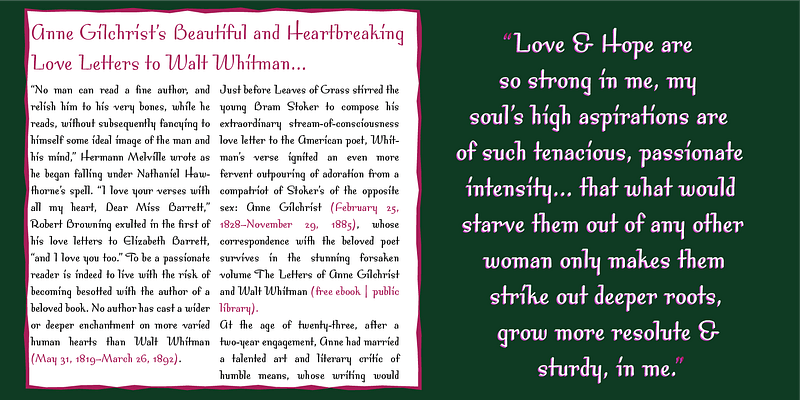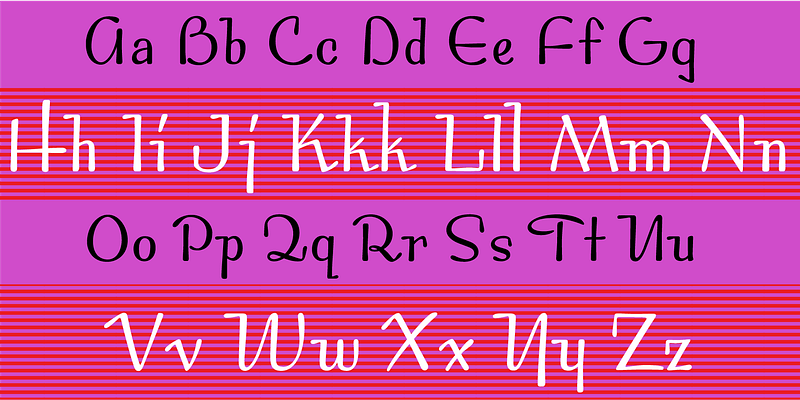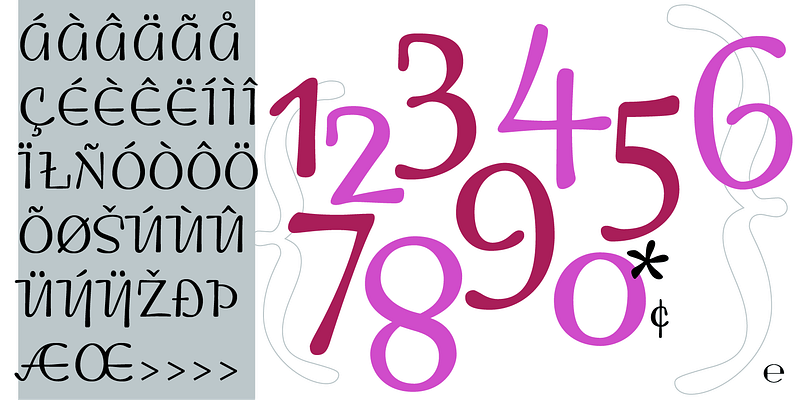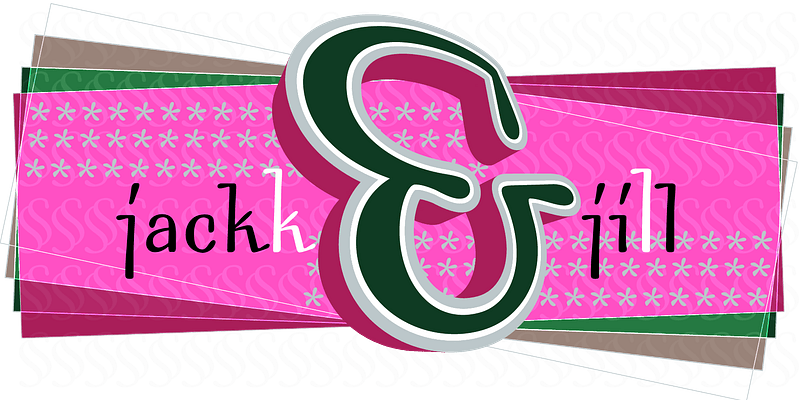
MVB Bossa Nova is based on unattributed hand-lettering found in an old book, circa 1946. Yet unlike many scripts based on a vintage source, it feels fresh and dynamic. This is due to the skilled hands of Holly Goldsmith, who gave the forms a contemporary vigor despite their age. Alternate glyphs with extended ascenders offer extra flair.